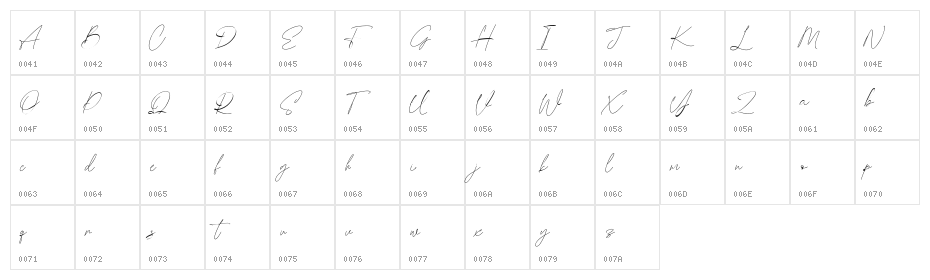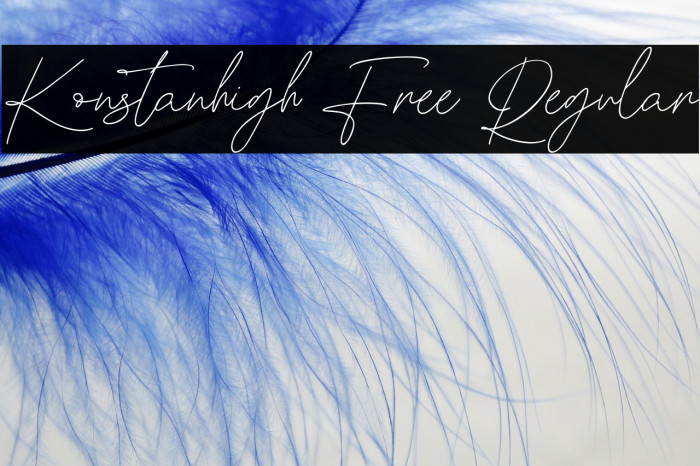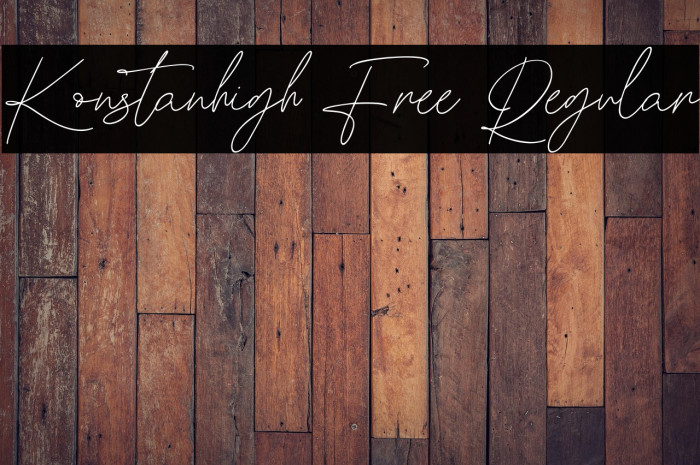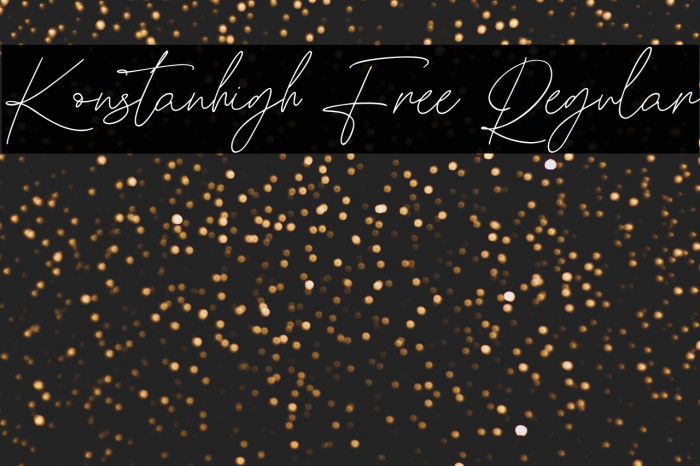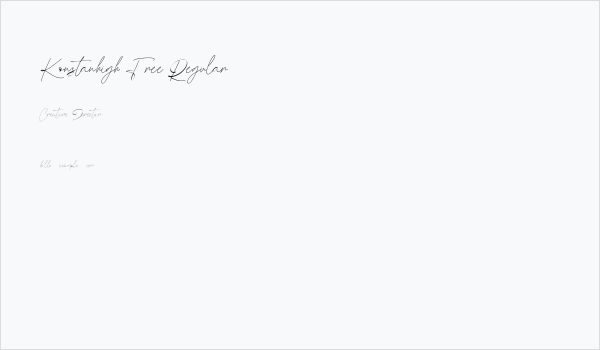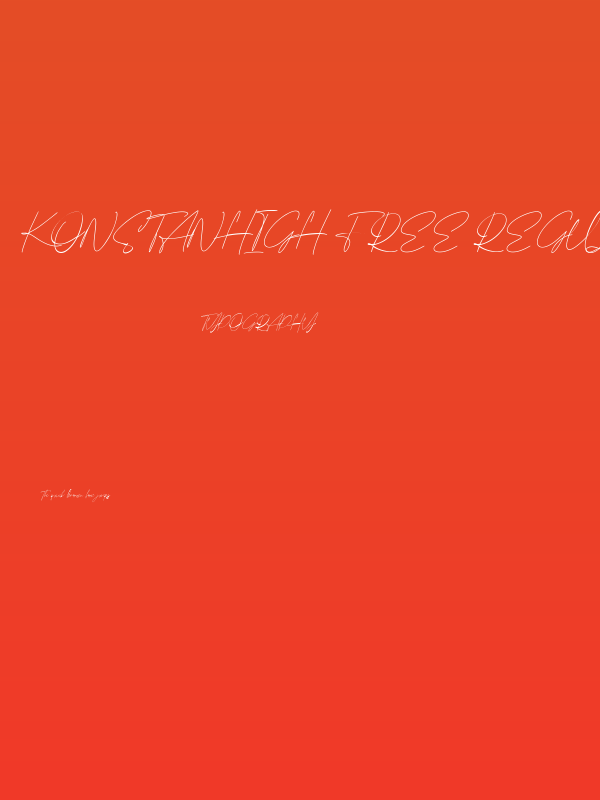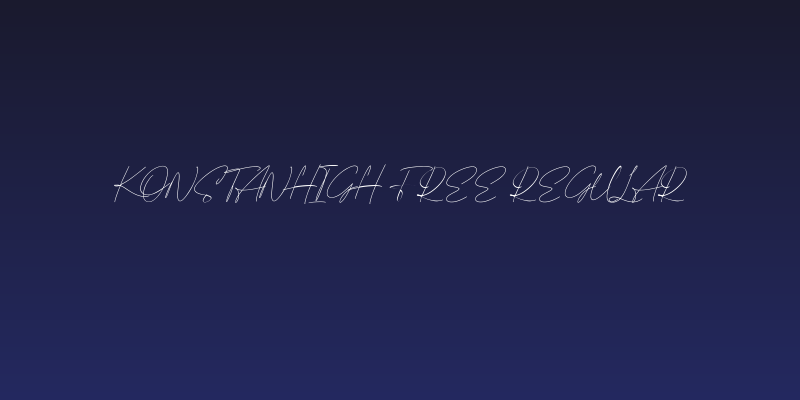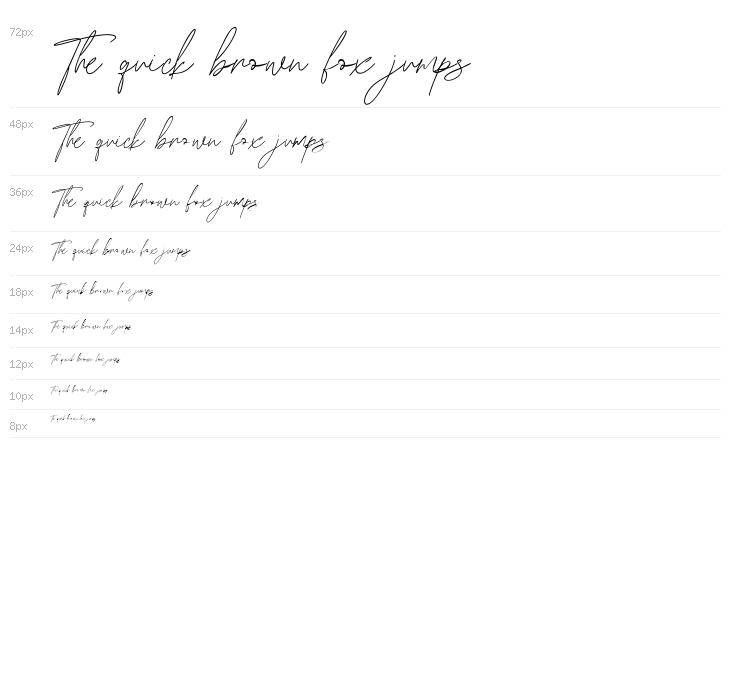
Konstanhigh Free Regular Font
Konstanhigh Free Regular Description
This font exudes a sense of elegance and fluidity, characterized by its cursive, handwritten style. The letters are interconnected with smooth, flowing lines that mimic the natural motion of handwriting. The strokes are thin and delicate, giving the font a light and airy feel. The uppercase letters are slightly more elaborate, with extended loops and curves, while the lowercase letters maintain a consistent, graceful appearance. The overall design is sophisticated and artistic, making it suitable for projects that require a personal touch or a sense of refinement.
| Overall Style | Elegant, Artistic |
| Proposed Projects | Ideal for wedding invitations, personal branding, greeting cards, and elegant packaging designs. |